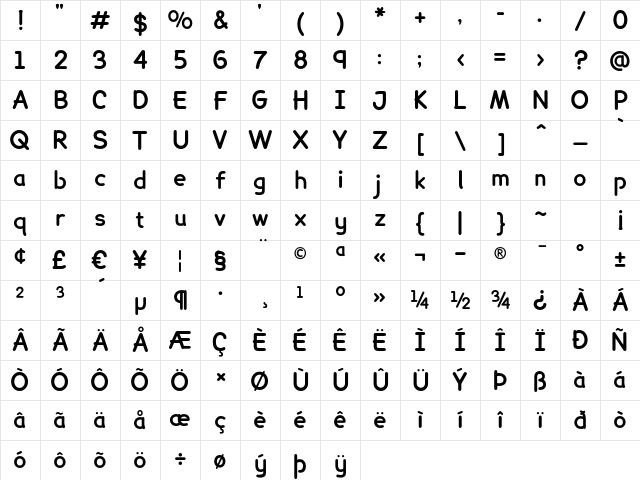
Lexia Bold Free Font
Lexia Bold
Lexia Family
Design Context for Lexia
Lexia is a composed and adaptable typeface that performs quietly and consistently across a wide range of design contexts. Its bold stroke weight gives it real presence on the page.